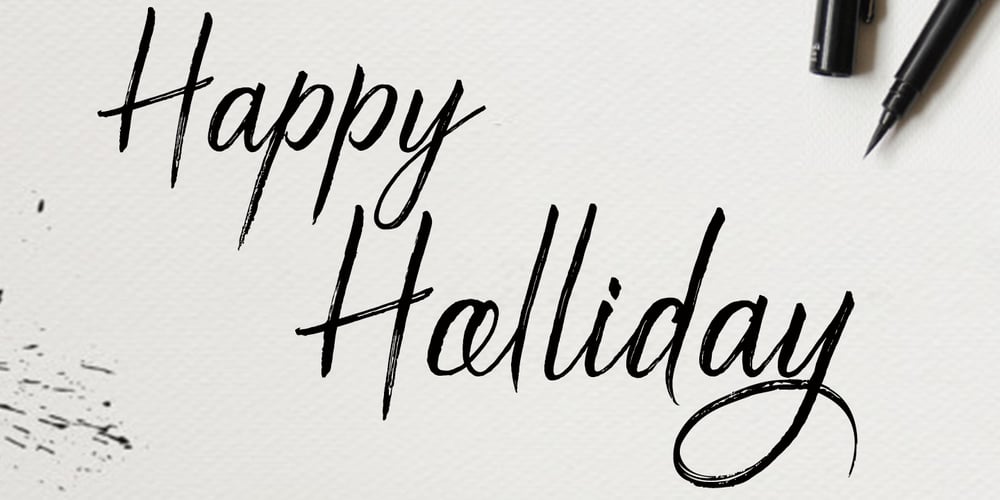
Stavol
Stavol font
Stavol Font Family was designed by Teuku Muslyawan and published by DonyaDesign. Stavol contains 1 styles and family package options. Stavol is a rough brush script font with a clear style and dramatic movement. This font is great for your next creative project such as logos, printed quotes, invitations, cards, product packaging, headers, Logotype, Letterhead, Poster, Apparel Design, Label, and etc.